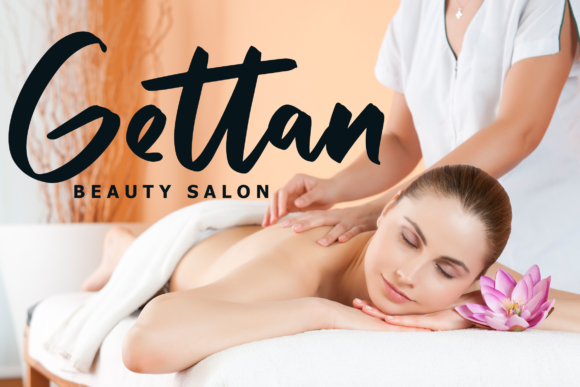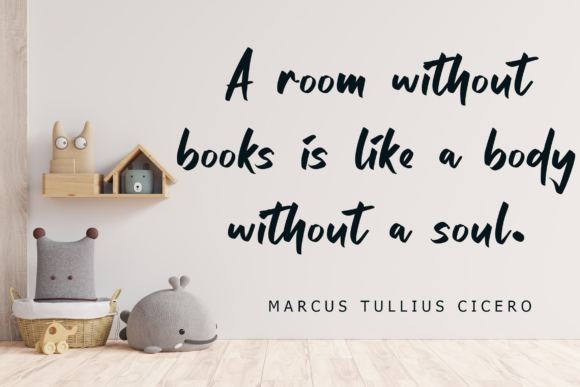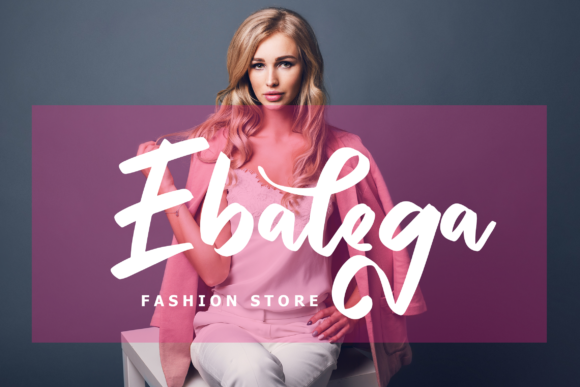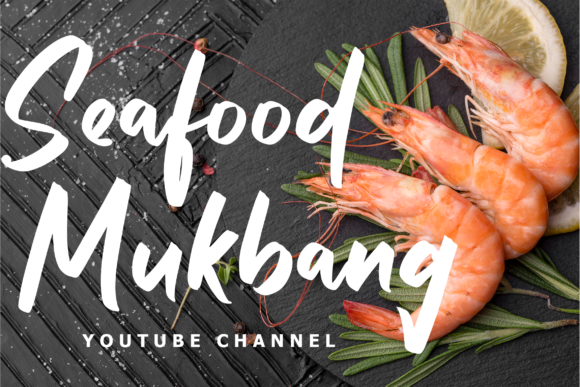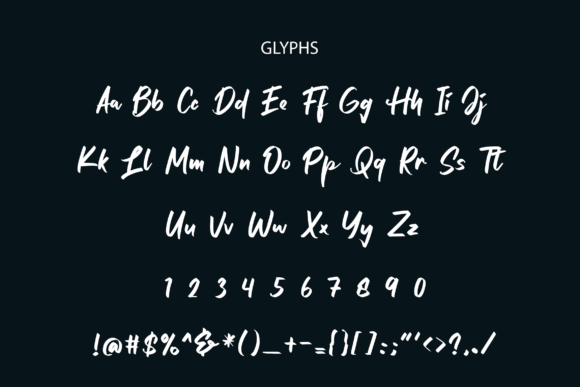
Introduction to Meytha Font
Meytha is a bold and casual handwritten font.
Add this chunky lettered font to your designs and notice how it makes them come alive .
Key Features of Meytha Font
Why Choose Meytha Font?